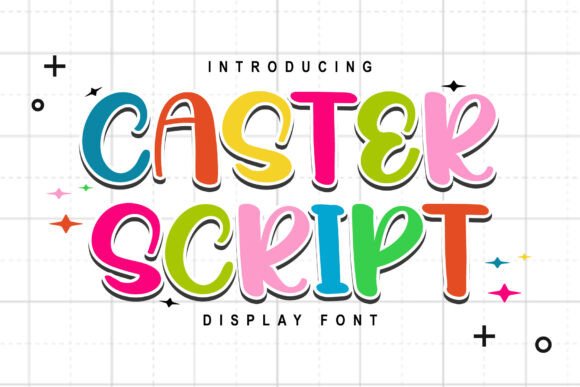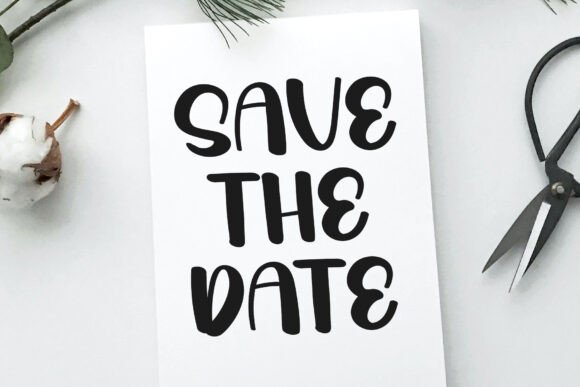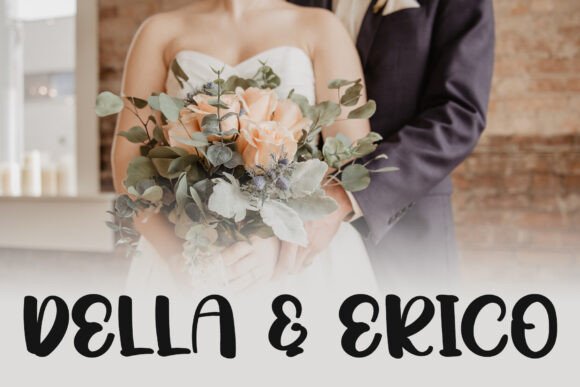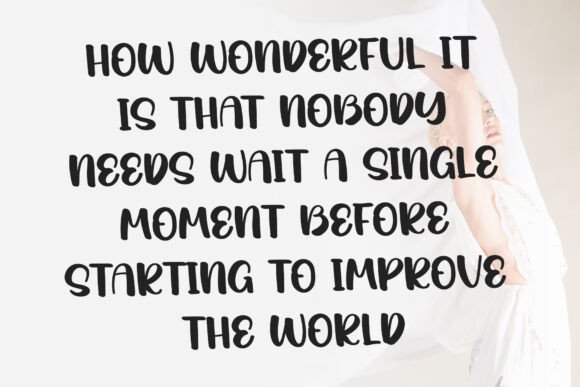
Caster Script Font
About the Caster Script Font
Add a touch of class to your work with the Caster Script Font, a truly exceptional typeface. Caster Script is a bold and captivating display font that commands attention with its strong, distinctive letterforms. Designed to stand out, this powerful font blends creativity and impact, making it perfect for projects that need an eye-catching and memorable typographic style. Whether you’re working on branding, posters, or digital designs, Caster Script adds a touch of bold magic to your visuals.
Caster Script Font Usage Examples
Caster Script Font Example